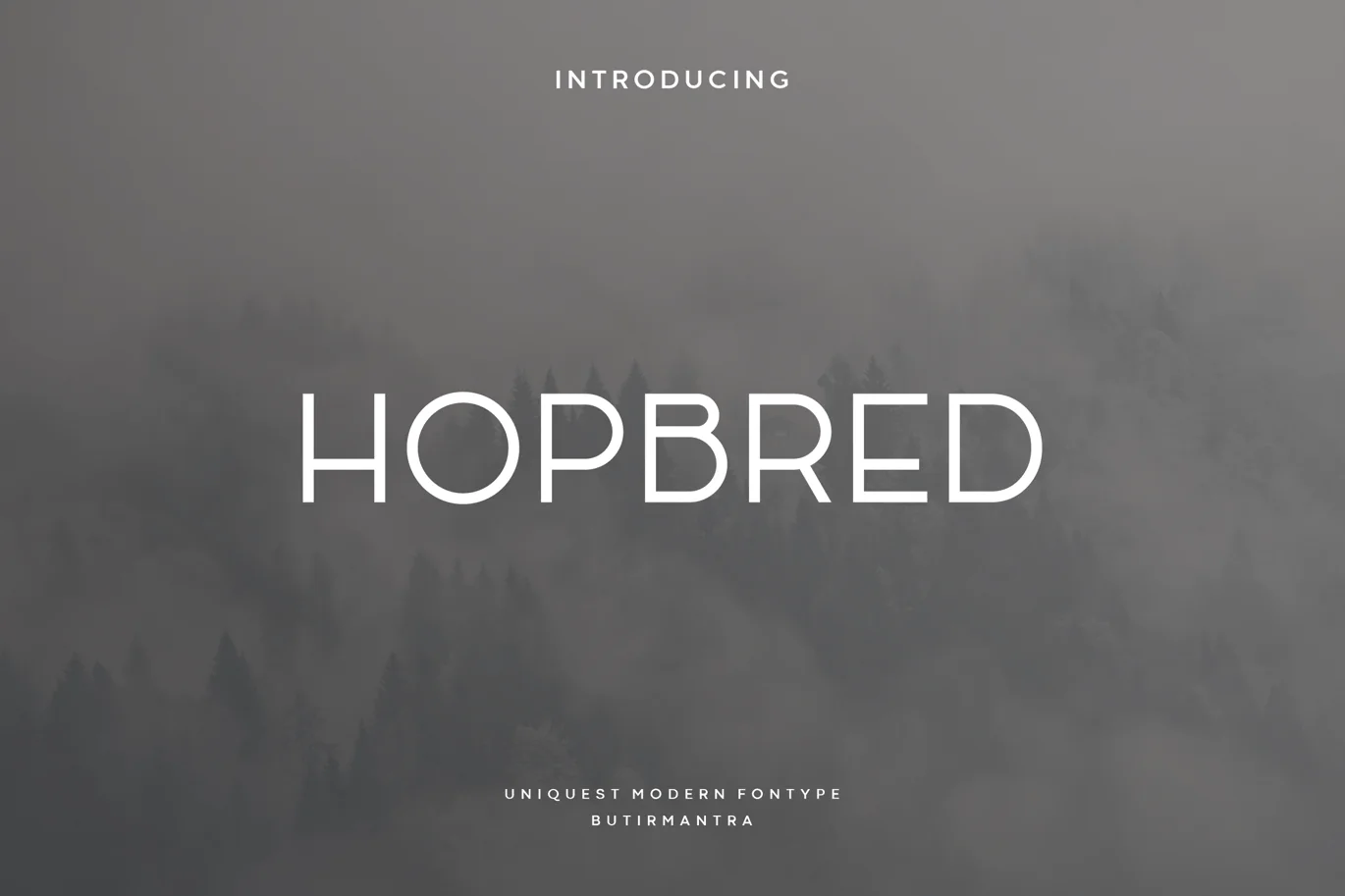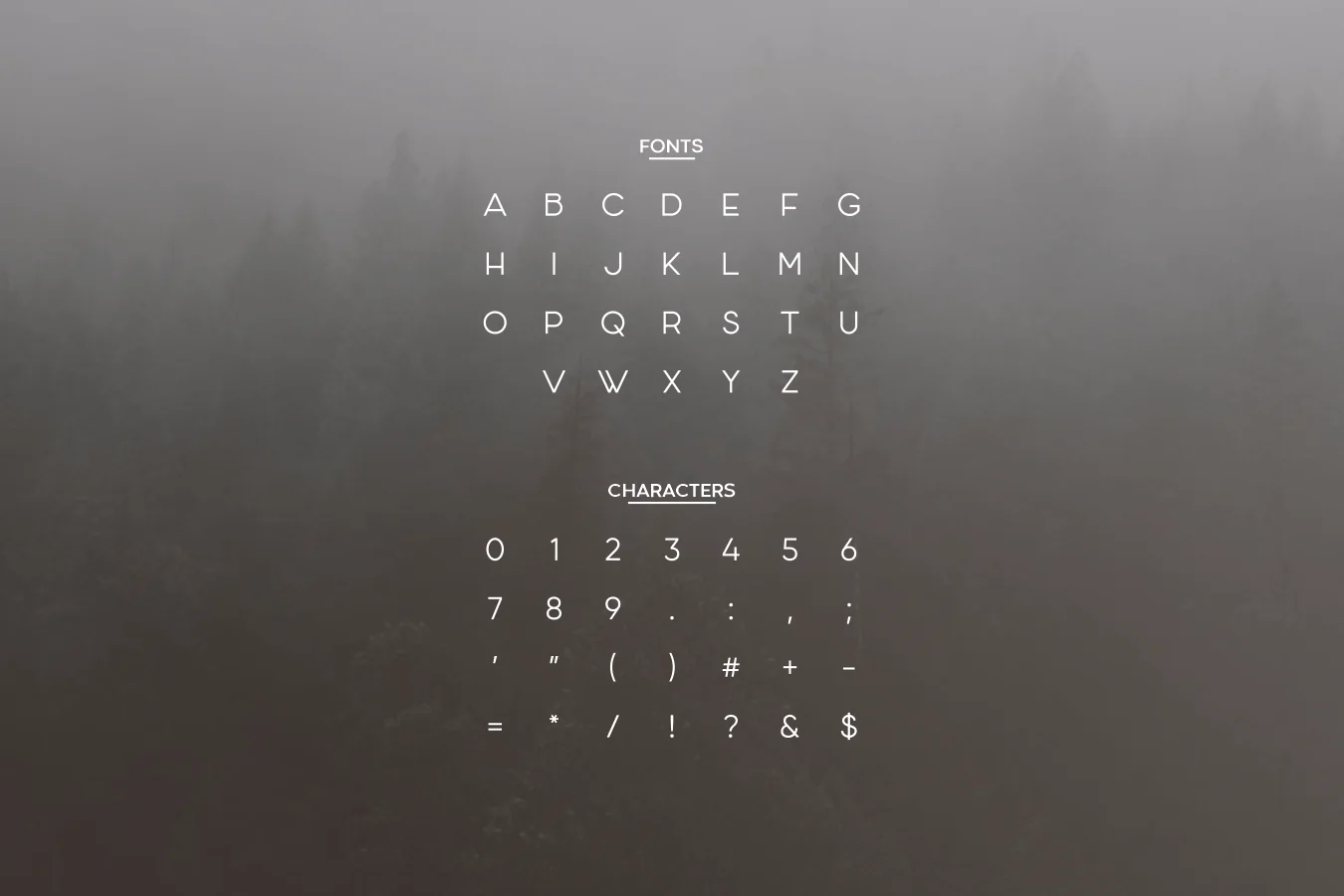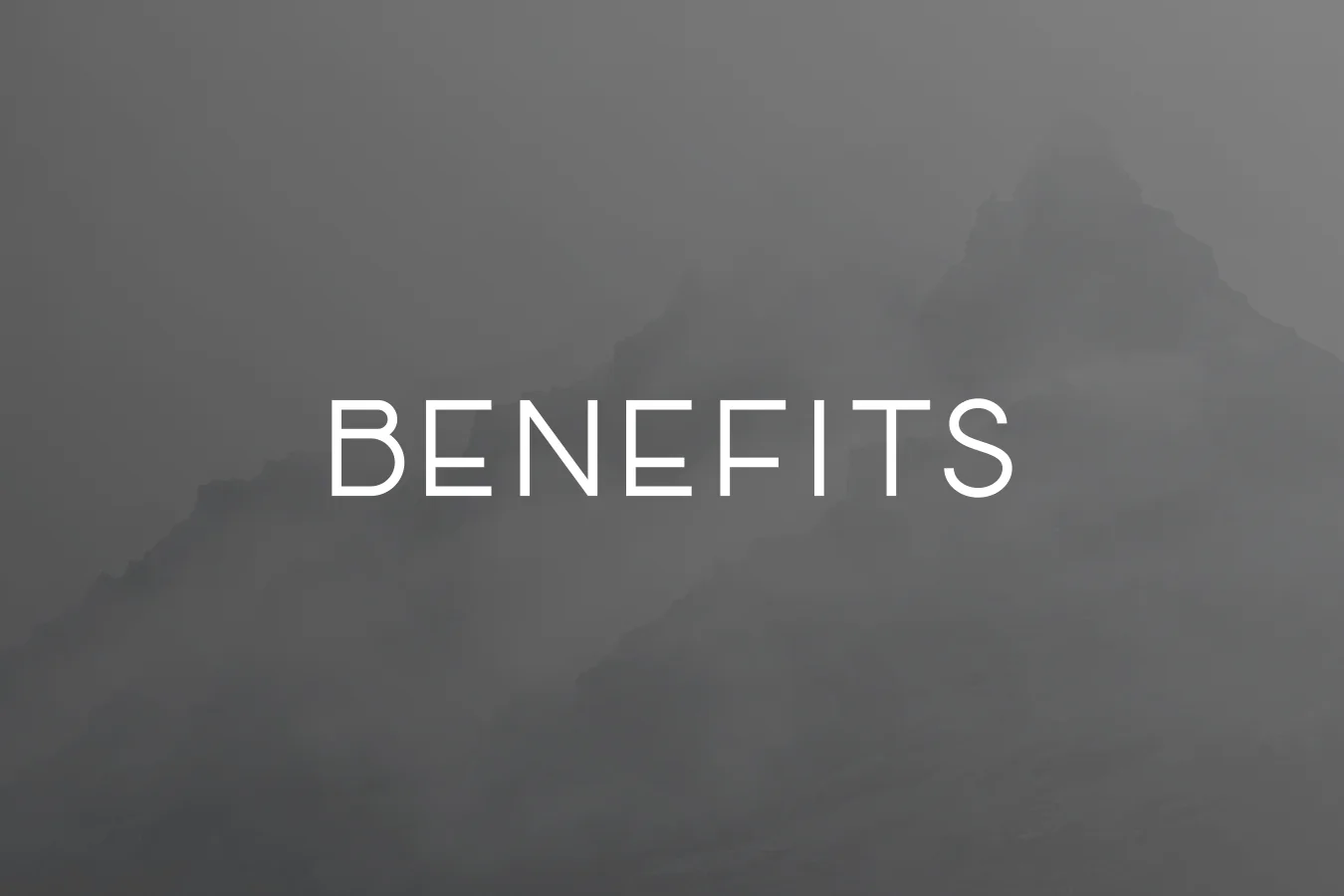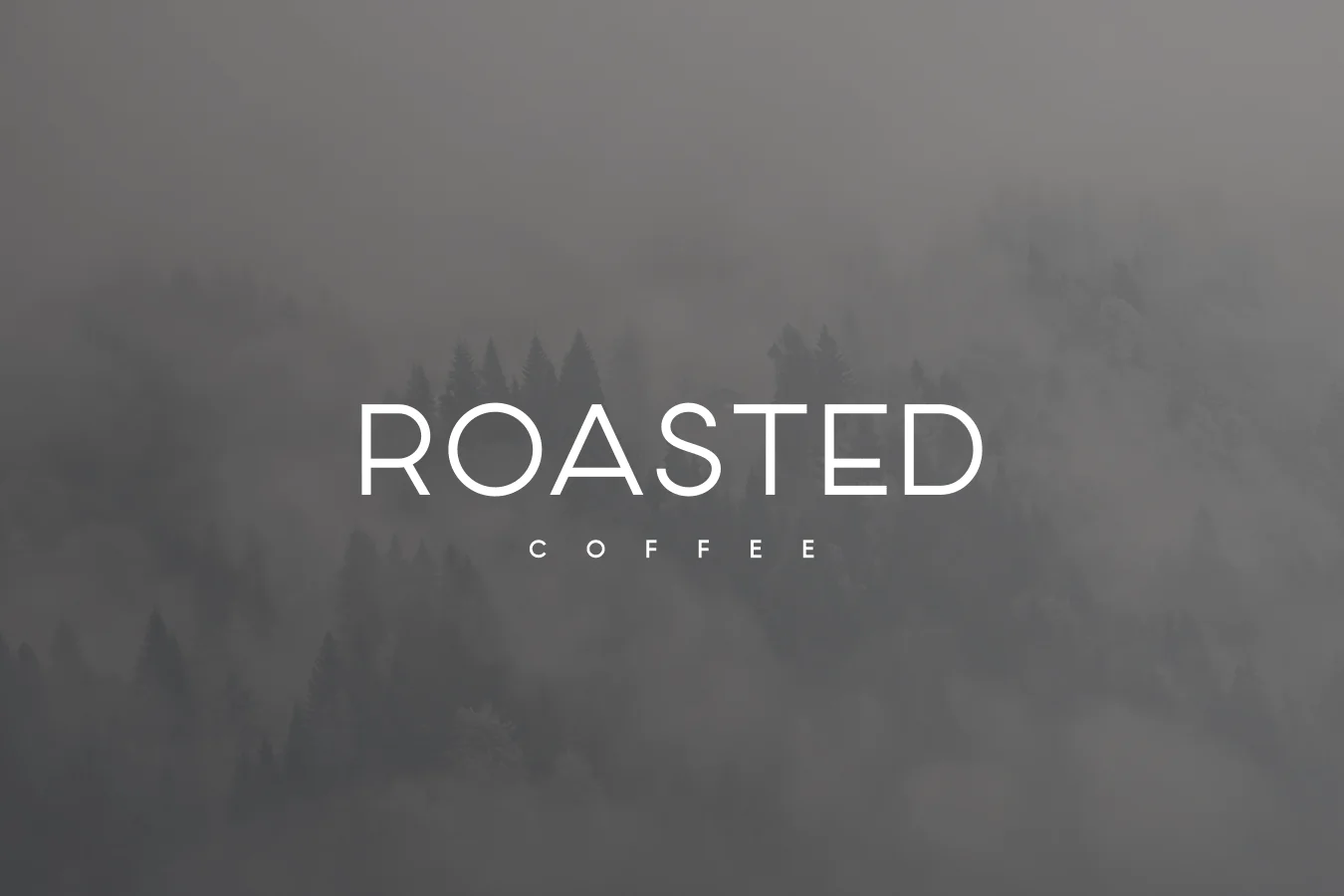
Hopbred – Artdeco Font
Hopbred font is a display font with a unique style that has improvised an all-caps mode, even though it’s an all-caps font. This font is perfect for anything related to food, illustrations, book titles, website titles, video writing, or anything else you can try to gain experience in graphic design needs. Bringing back a simple vintage style but looking modern, of course it will give a timeless effect.